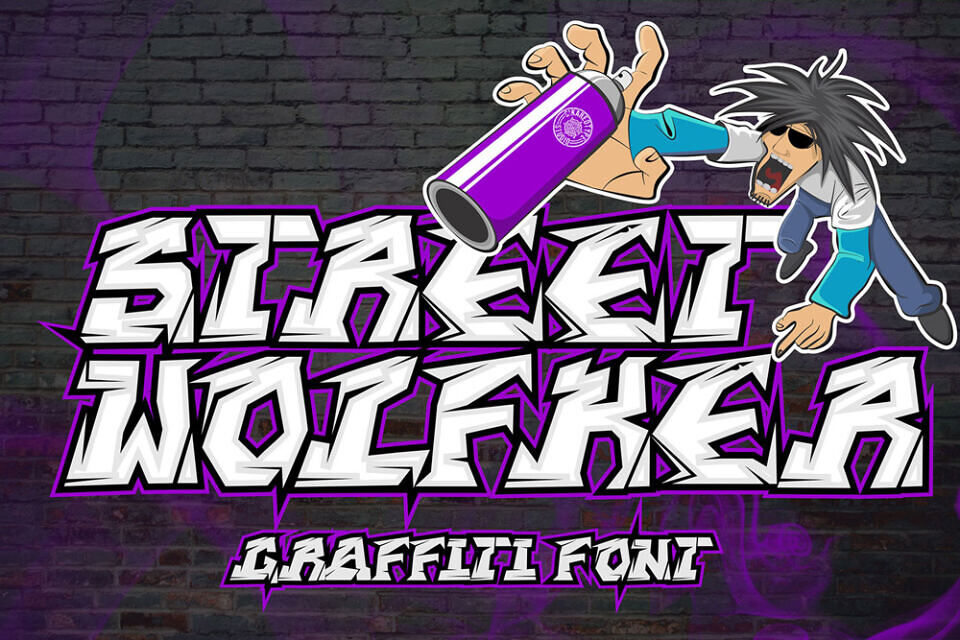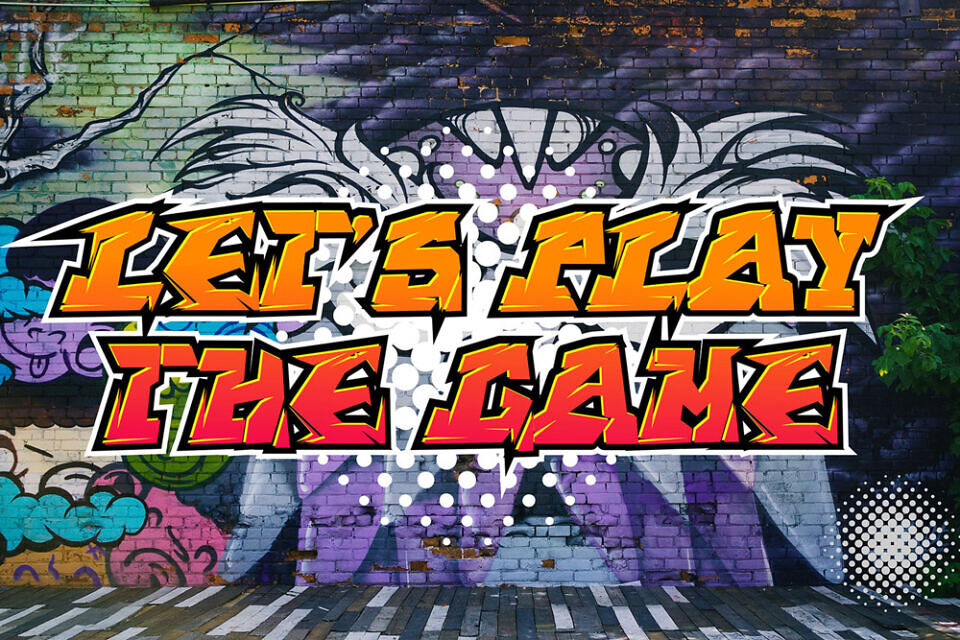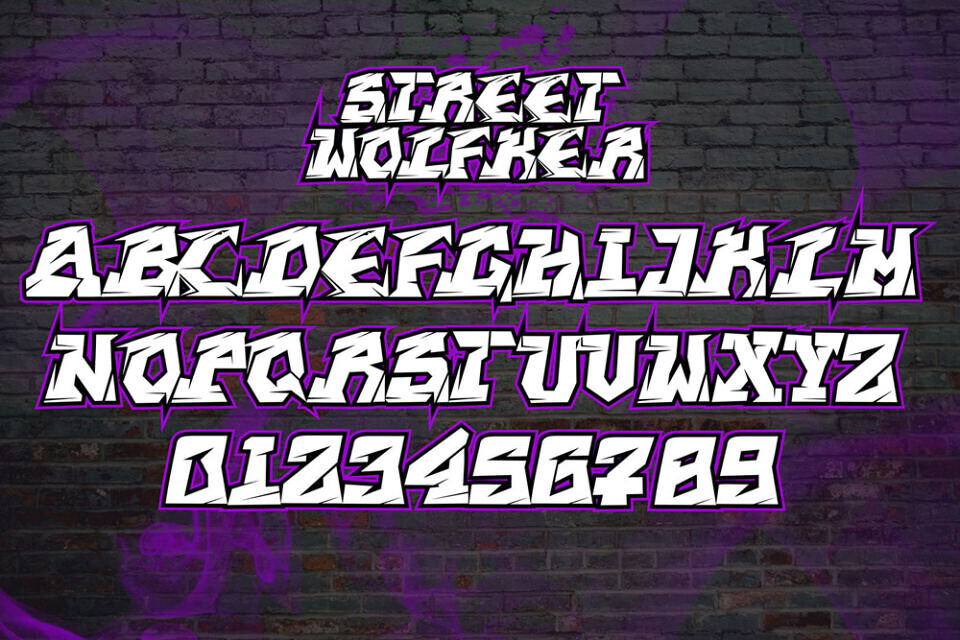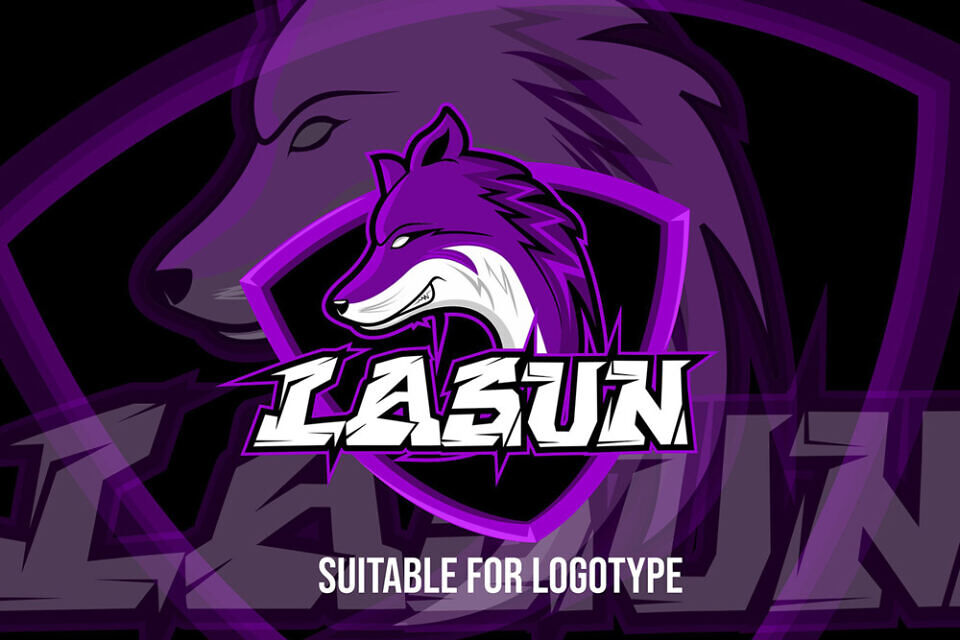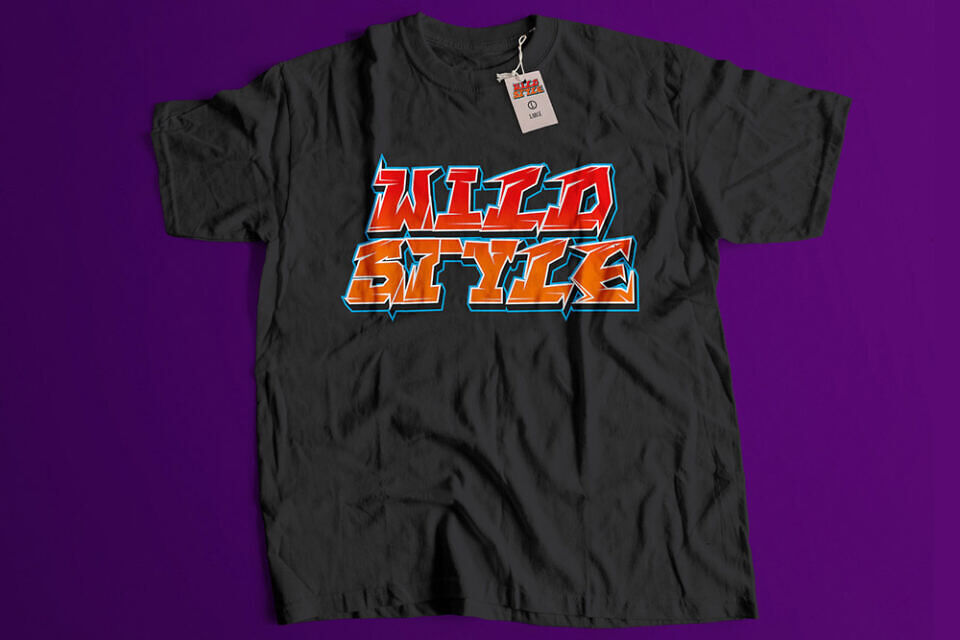
Street Wolfker Font
Street Wolfker is a futuristic wild graffiti font inspired by cyberpunk visuals, underground street art, futuristic urban culture, and aggressive graffiti typography trends. Designed with sharp letterforms, dynamic futuristic details, and expressive wildstyle energy, this urban display font delivers powerful visual impact for modern creative projects.
Whether you are creating streetwear branding, gaming graphics, music artwork, esports visuals, or social media content, Street Wolfker gives your typography a bold futuristic street identity that instantly stands out.